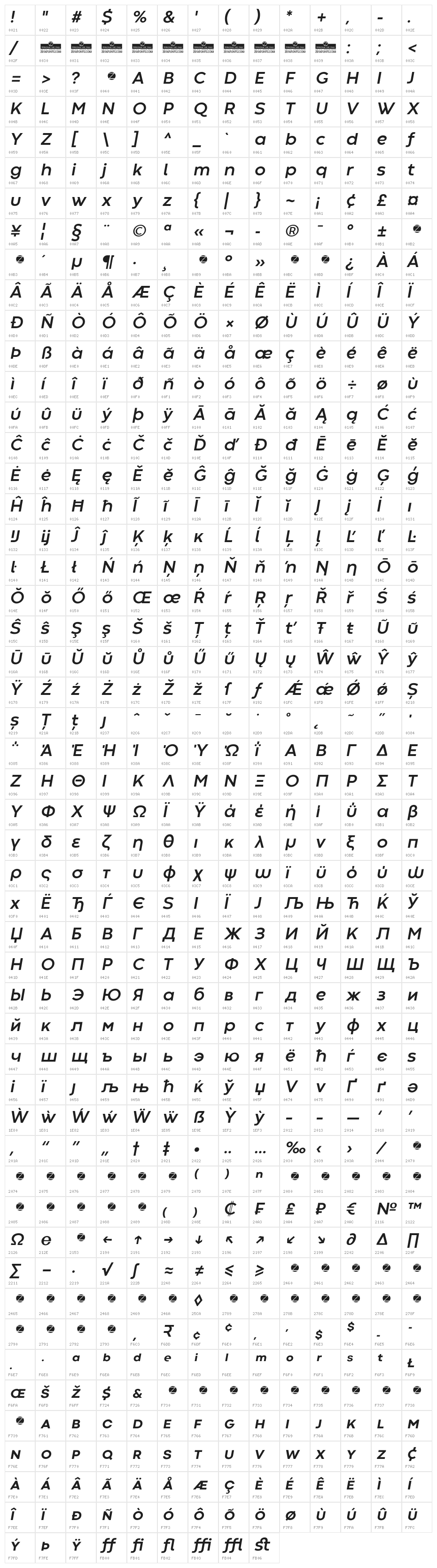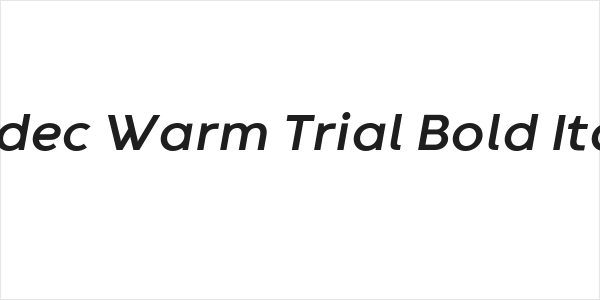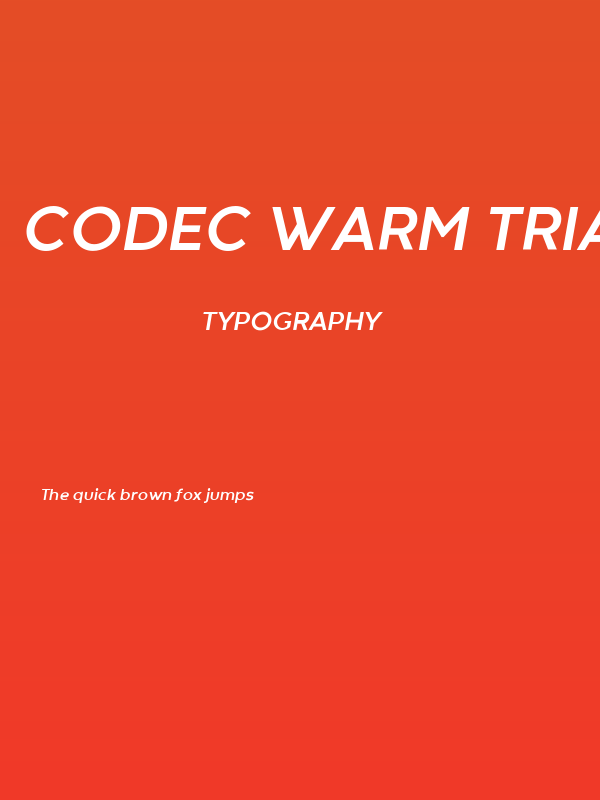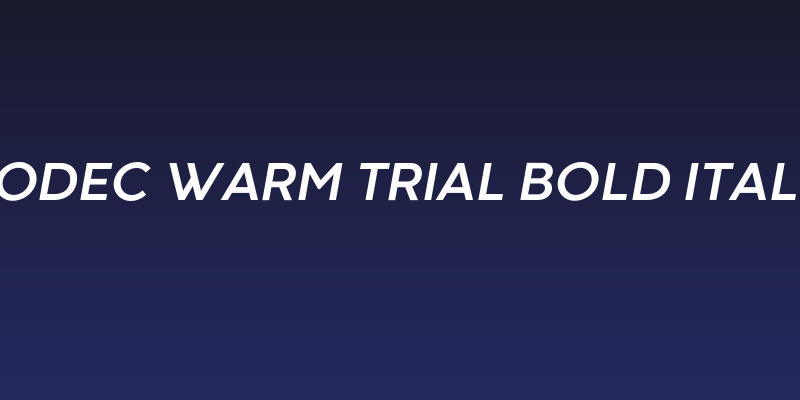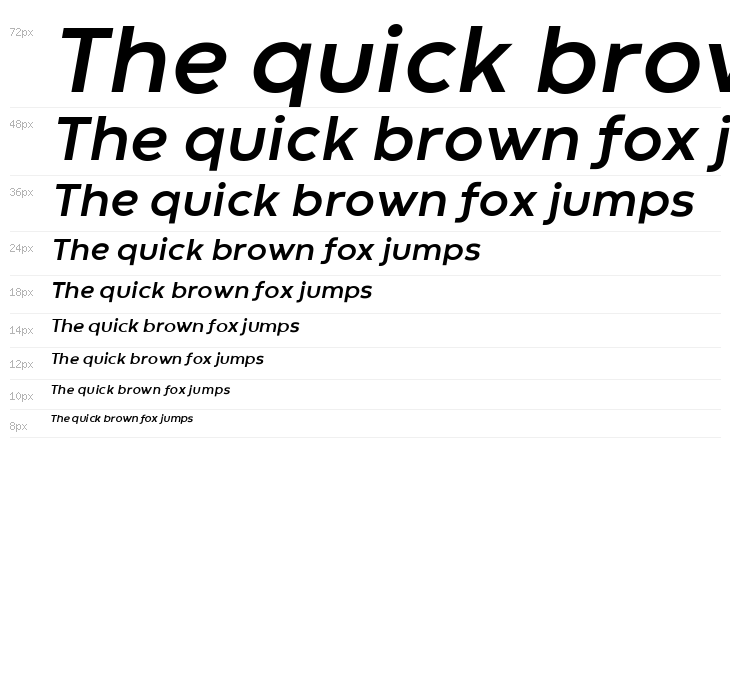
Codec Warm Trial Bold Italic Font
Codec Warm Trial Bold Italic Description
This font exhibits a sleek and modern aesthetic with a bold and italicized style. The characters are slightly slanted, adding a dynamic and forward-moving feel. The strokes are consistent and smooth, with a medium contrast that enhances readability while maintaining a stylish appearance. The uppercase letters are well-proportioned, and the lowercase letters have a friendly, approachable look. The numerals are clear and distinct, making them suitable for various applications. Special characters are included, providing versatility for different design needs.
| Proposed Projects | Ideal for branding, advertising, and editorial design projects where a modern and bold statement is needed. |